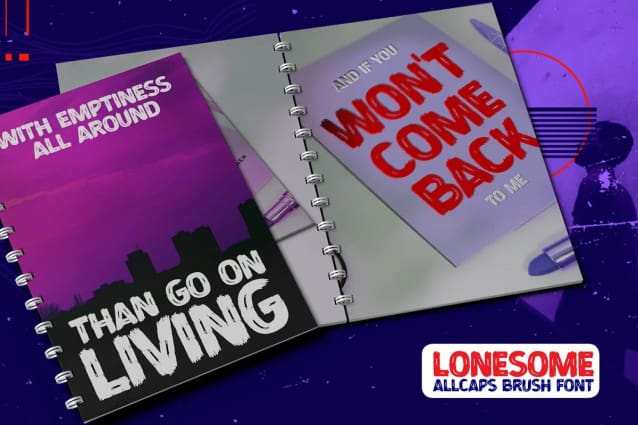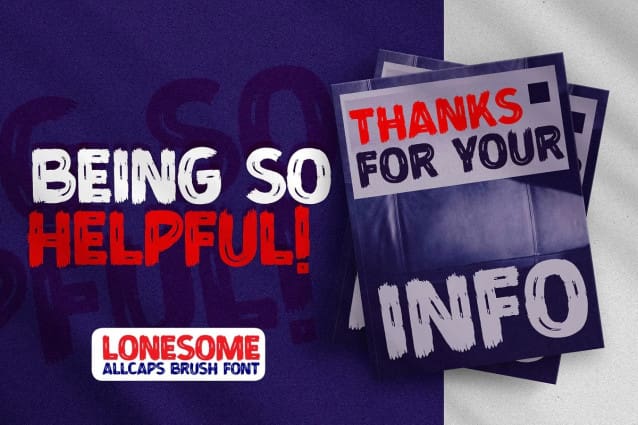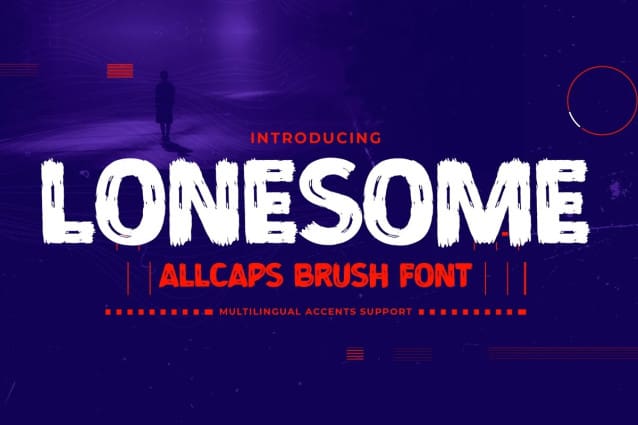
Lonesome Brush Font
Lonesome Brush Font is a All Caps Brush Font that is written casually and quickly. Letters are made with brushes on Procreate. Then crafted carefully drawn into vector format. That is why Lonesome has Stylish and strong characteristic more natural look to your text with a more modern look to your text.
Lonesome is perfect for homeware designs,branding projects, Logo design, Quotes product packagingprinted quotes, invitations, cards, product packaging, headers, Logotype, Letterhead, PosterLabel, cartoon, and comic etc.